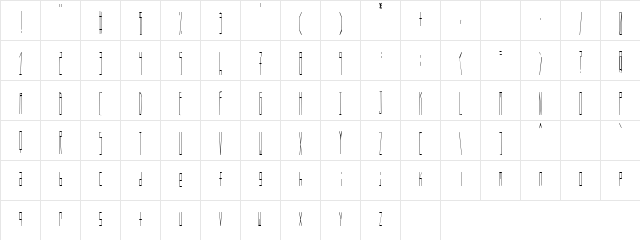
Wadlow Regular
Design Context for Wadlow
Wadlow is a composed and adaptable typeface that performs quietly and consistently across a wide range of design contexts.